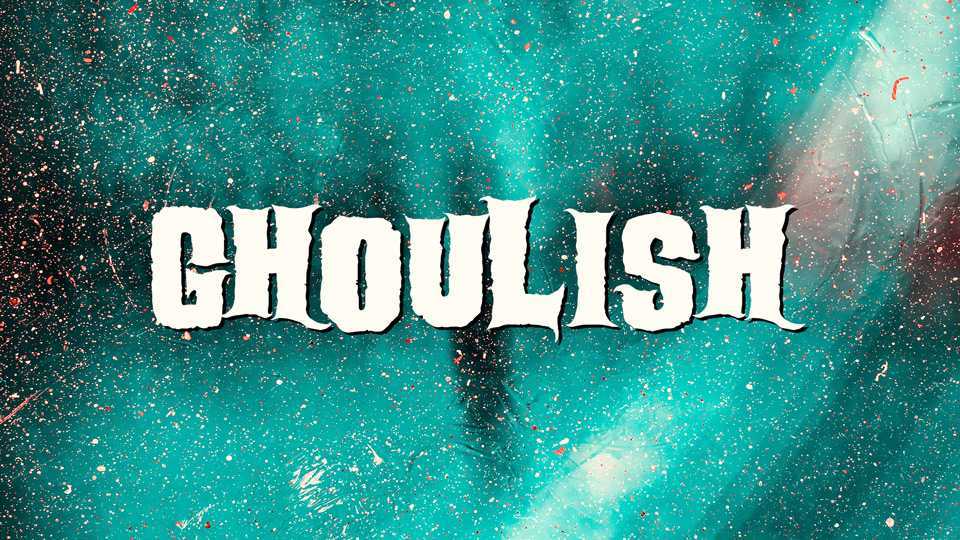
Download Ghoulish font, a typeface that brings an eerie and ethereal vibe to your design. Ghoulish adds an unsettling aura and a haunting ambiance to every letter.